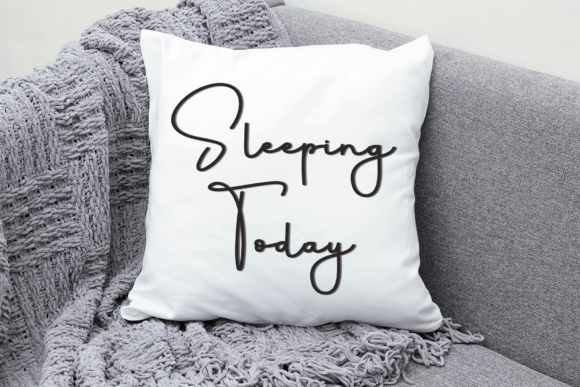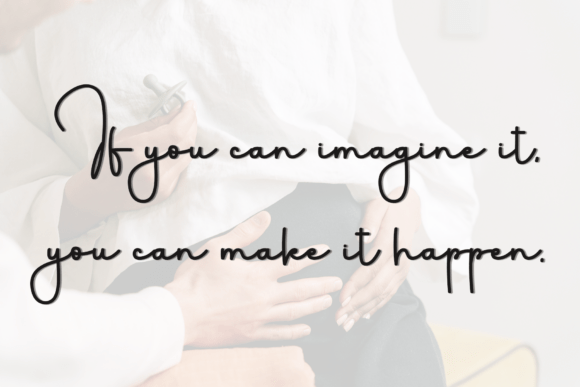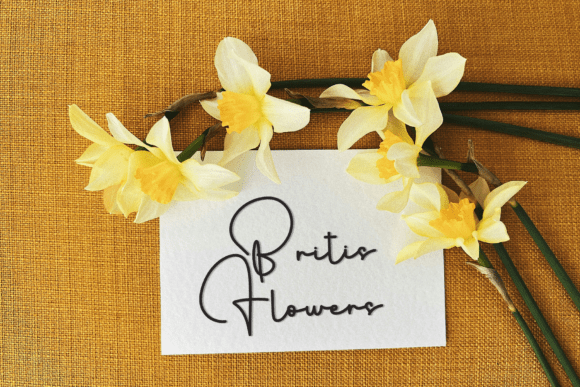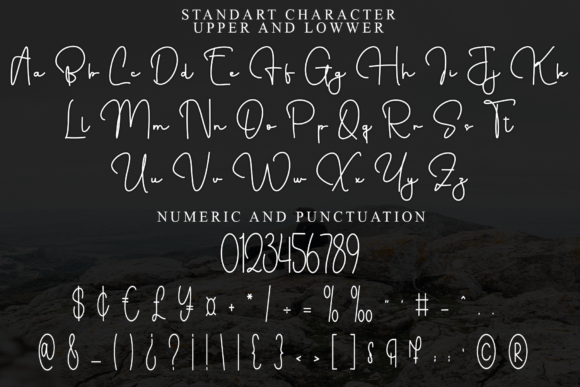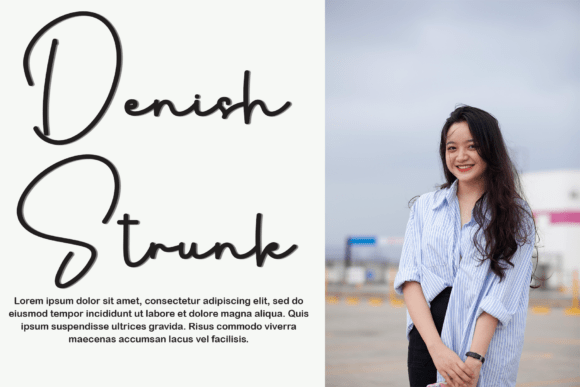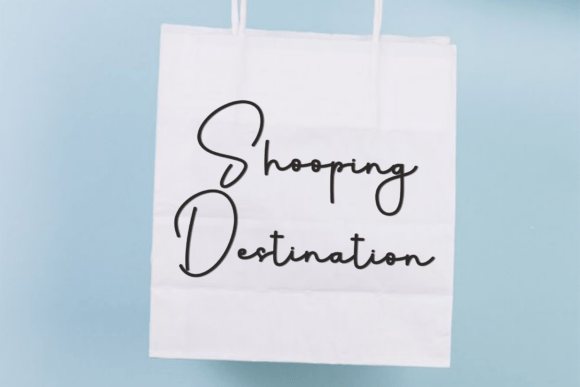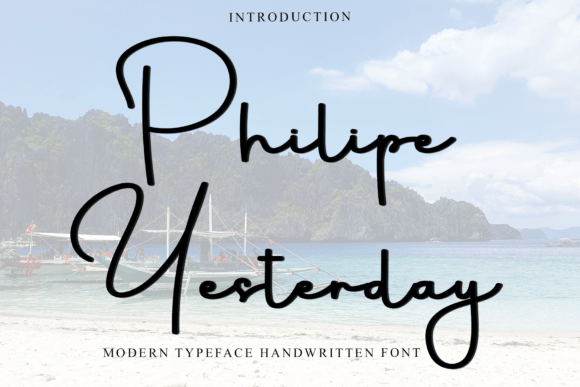
Fhilipe Yesterday Font: A Festive and Merry Typeface for the Holiday Season
The holiday season is upon us, and what better way to get into the spirit than with a font that’s as festive and merry as Fhilipe Yesterday? This decorative typeface is designed to capture the magic of the holiday season, with its whimsical flair and enchanting elements. Whether you’re a designer, crafter, or simply someone who loves the holidays, Fhilipe Yesterday is the perfect addition to your typography collection.
A Festive Font for Holiday Designs
Fhilipe Yesterday is a font that’s specifically designed to bring a touch of holiday cheer to your designs. With its decorative elements and nostalgic ambiance, it’s perfect for a wide range of holiday-themed projects, from greeting cards and gift tags to festive posters and social media graphics. The font’s whimsical flair adds a playful touch to your typography, making it perfect for designers and crafters who want to create unique and eye-catching designs.
One of the best things about Fhilipe Yesterday is that it’s PUA (Private Use Area) encoded, which means that you can access all of the amazing glyphs and ligatures with ease. This makes it easy to add a touch of magic to your designs, without having to worry about complicated font editing or special software. With Fhilipe Yesterday, you can simply type away and enjoy the festive and merry vibe that the font provides.
Fhilipe Yesterday is a font that’s perfect for designers and crafters of all levels. Whether you’re a professional designer looking for a unique and eye-catching font to add to your collection, or a crafter who wants to create beautiful and festive holiday projects, this font is sure to delight. The font’s decorative elements and whimsical flair make it perfect for a wide range of projects, from digital designs to handmade crafts.
What You Can Create with Fhilipe Yesterday
With Fhilipe Yesterday, the possibilities are endless. Here are just a few ideas to get you started:
- Greeting cards: Create beautiful and festive holiday greeting cards with Fhilipe Yesterday. The font’s decorative elements and whimsical flair make it perfect for adding a touch of magic to your cards.
- Gift tags: Add a touch of enchantment to your gift tags with Fhilipe Yesterday. The font’s nostalgic ambiance and festive vibe make it perfect for creating unique and eye-catching gift tags.
- Holiday posters: Create stunning holiday posters with Fhilipe Yesterday. The font’s decorative elements and whimsical flair make it perfect for adding a touch of drama and flair to your posters.
- Social media graphics: Add a touch of holiday cheer to your social media graphics with Fhilipe Yesterday. The font’s festive and merry vibe make it perfect for creating eye-catching and engaging social media graphics.
Why Choose Fhilipe Yesterday?
So why choose Fhilipe Yesterday for your holiday designs? Here are just a few reasons:
- Unique and eye-catching: Fhilipe Yesterday is a font that’s unlike any other. Its decorative elements and whimsical flair make it perfect for adding a touch of magic to your designs.
- Festive and merry: The font’s festive and merry vibe make it perfect for the holiday season. Whether you’re creating designs for Christmas, Hanukkah, or any other holiday, Fhilipe Yesterday is sure to delight.
- Easy to use: Fhilipe Yesterday is PUA encoded, which makes it easy to access all of the amazing glyphs and ligatures. This means that you can focus on creating beautiful designs, rather than worrying about complicated font editing.